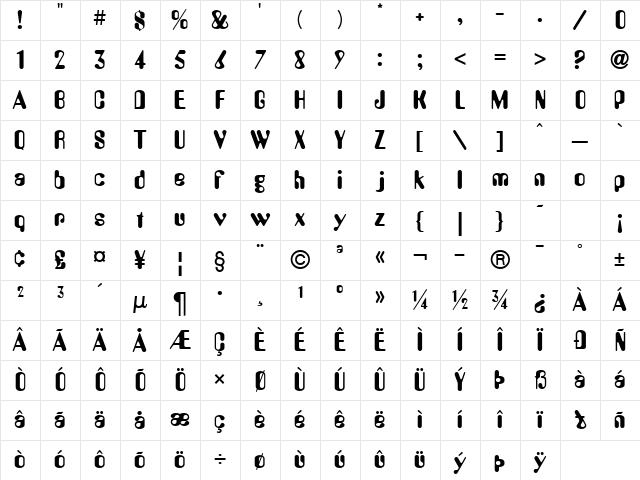
Amelia ICG Regular
Complete Amelia ICG Regular glyph index. Displaying only characters natively supported by Amelia ICG Regular font.
Design Context for Amelia ICG
Amelia ICG is a composed and adaptable typeface that performs quietly and consistently across a wide range of design contexts.